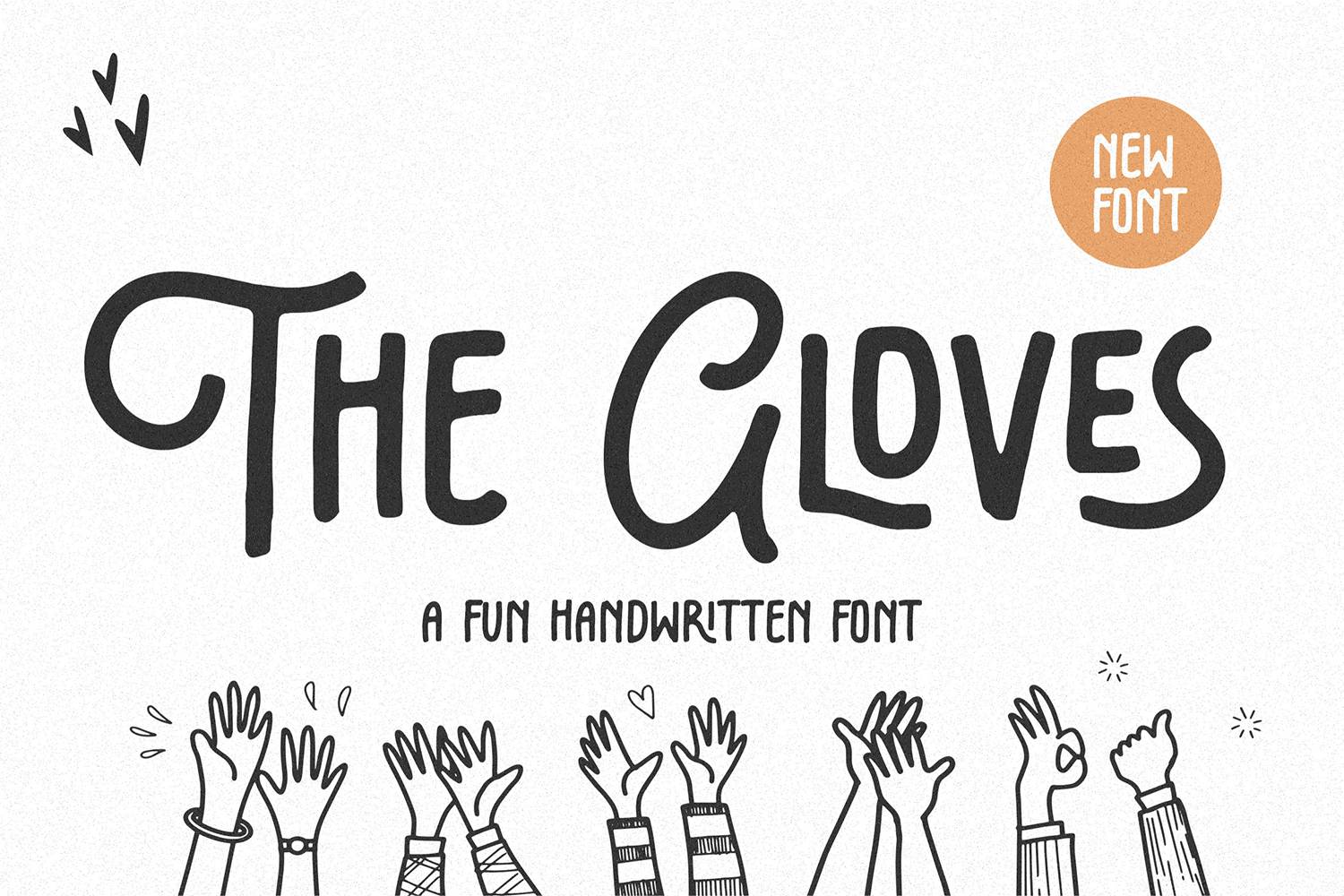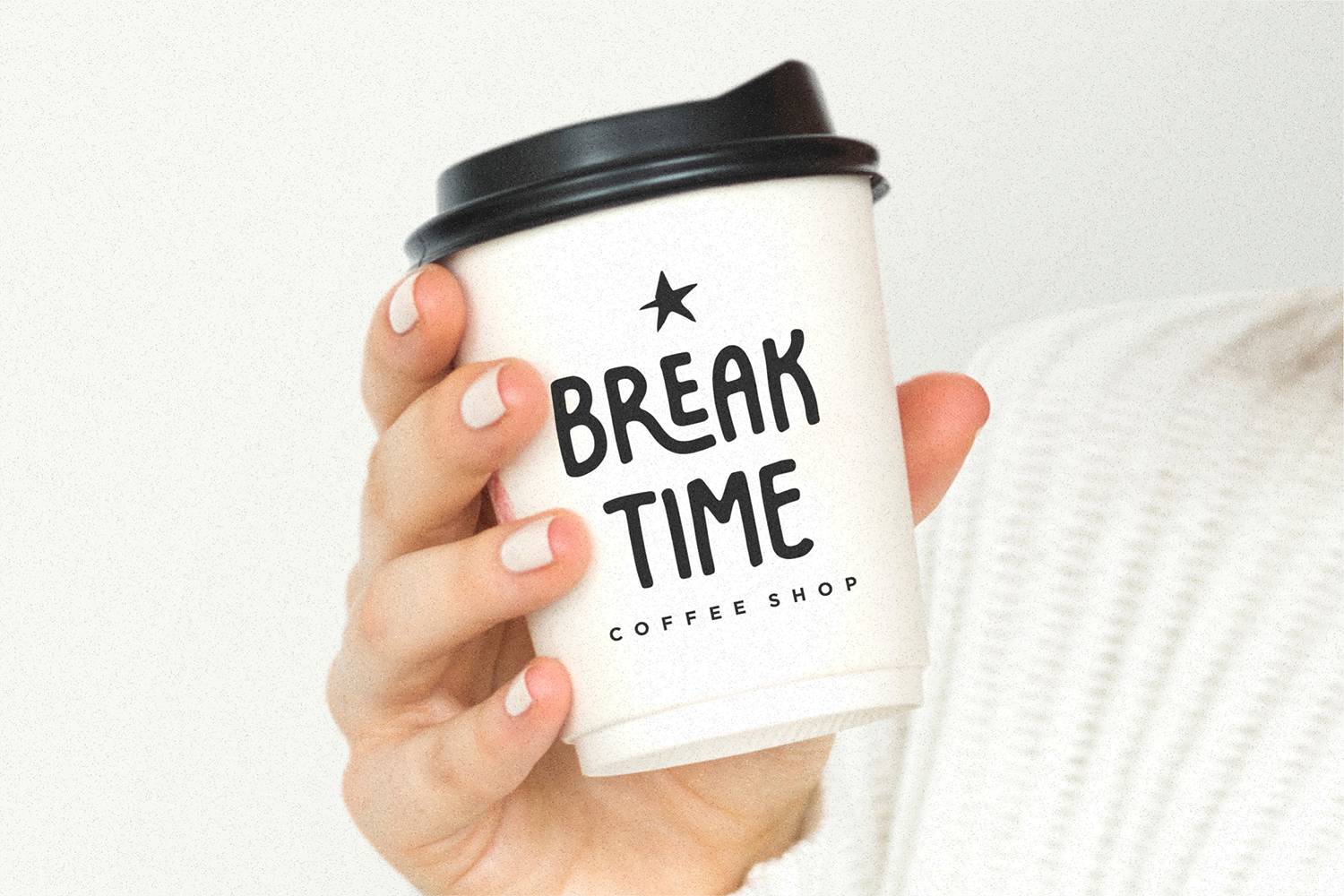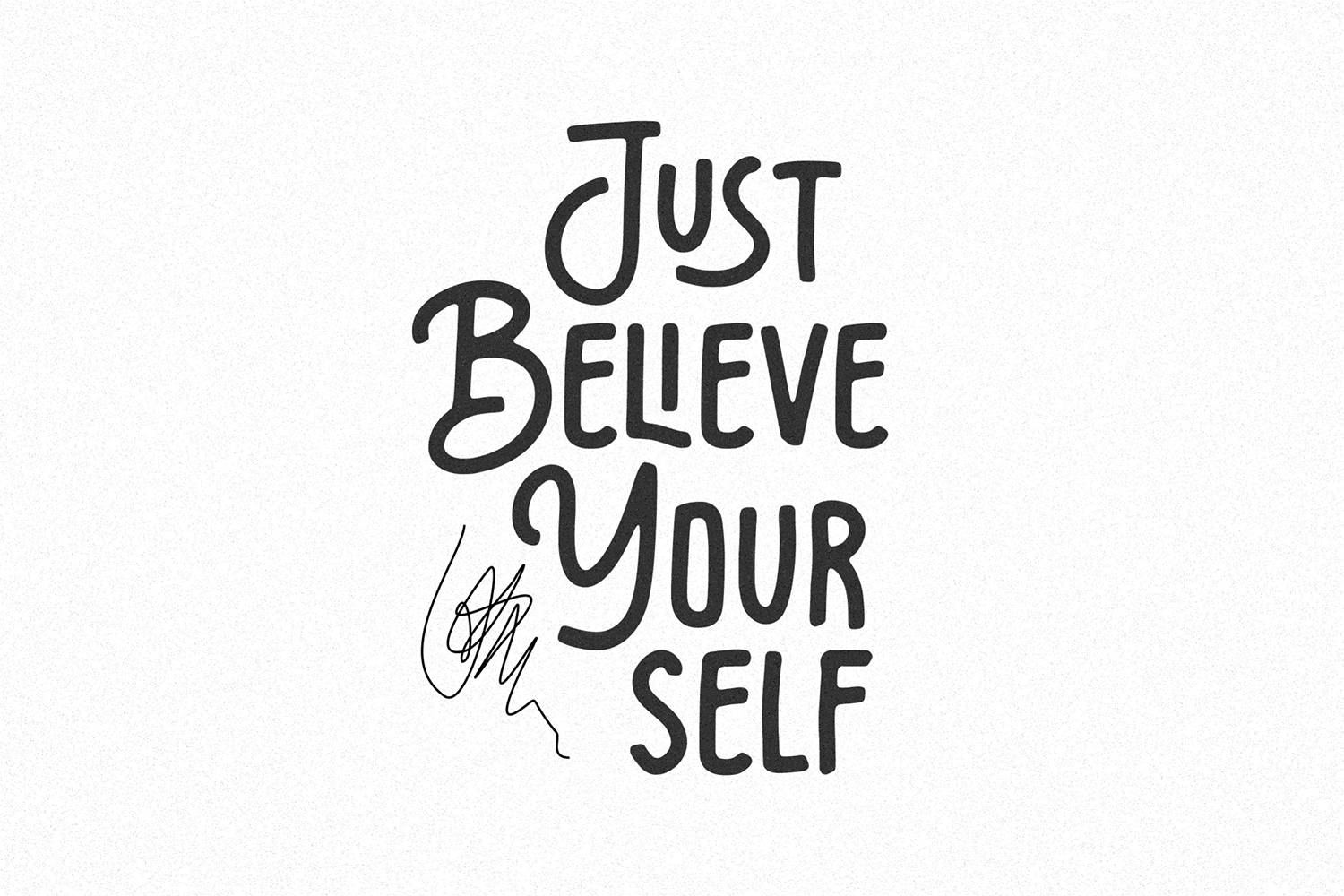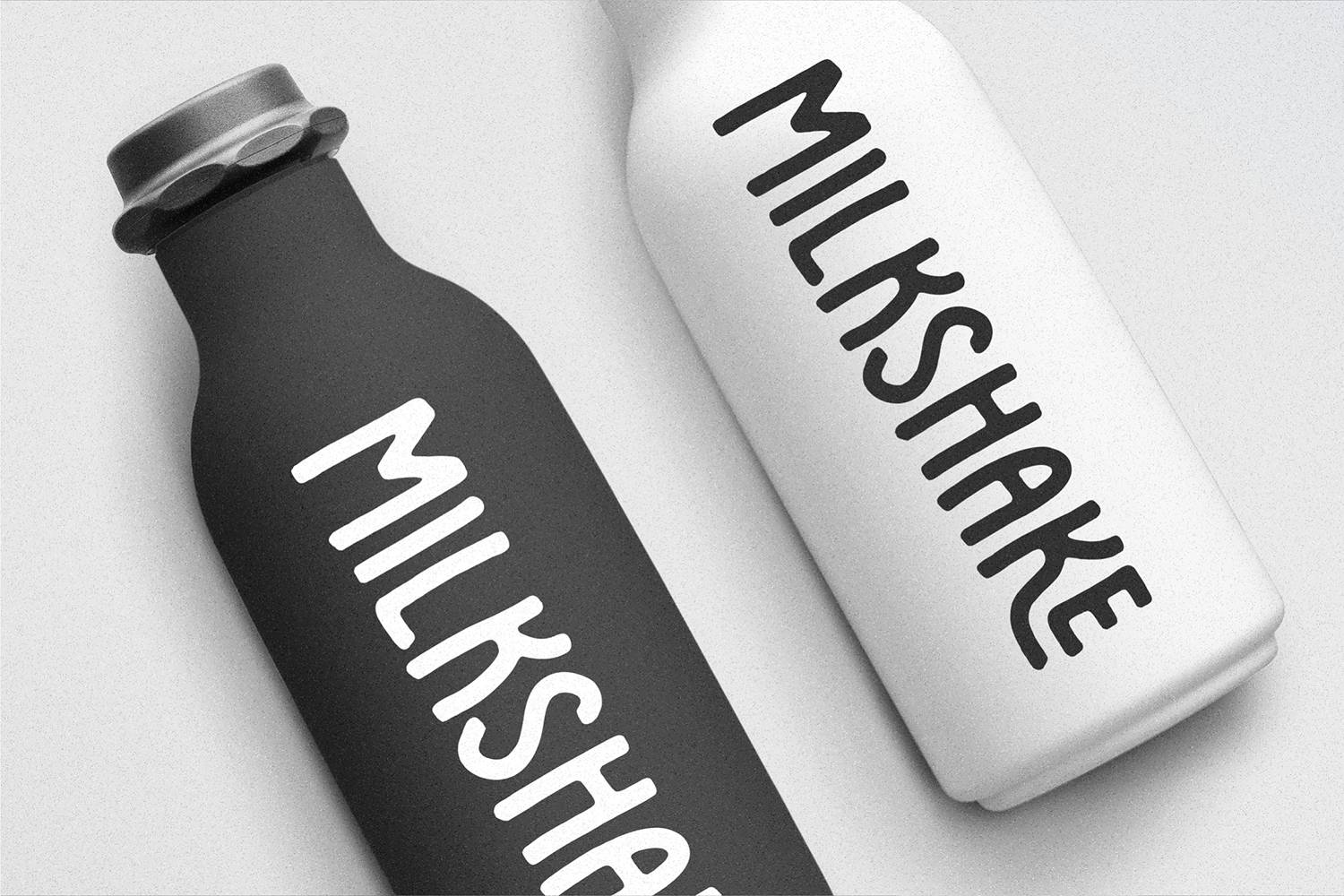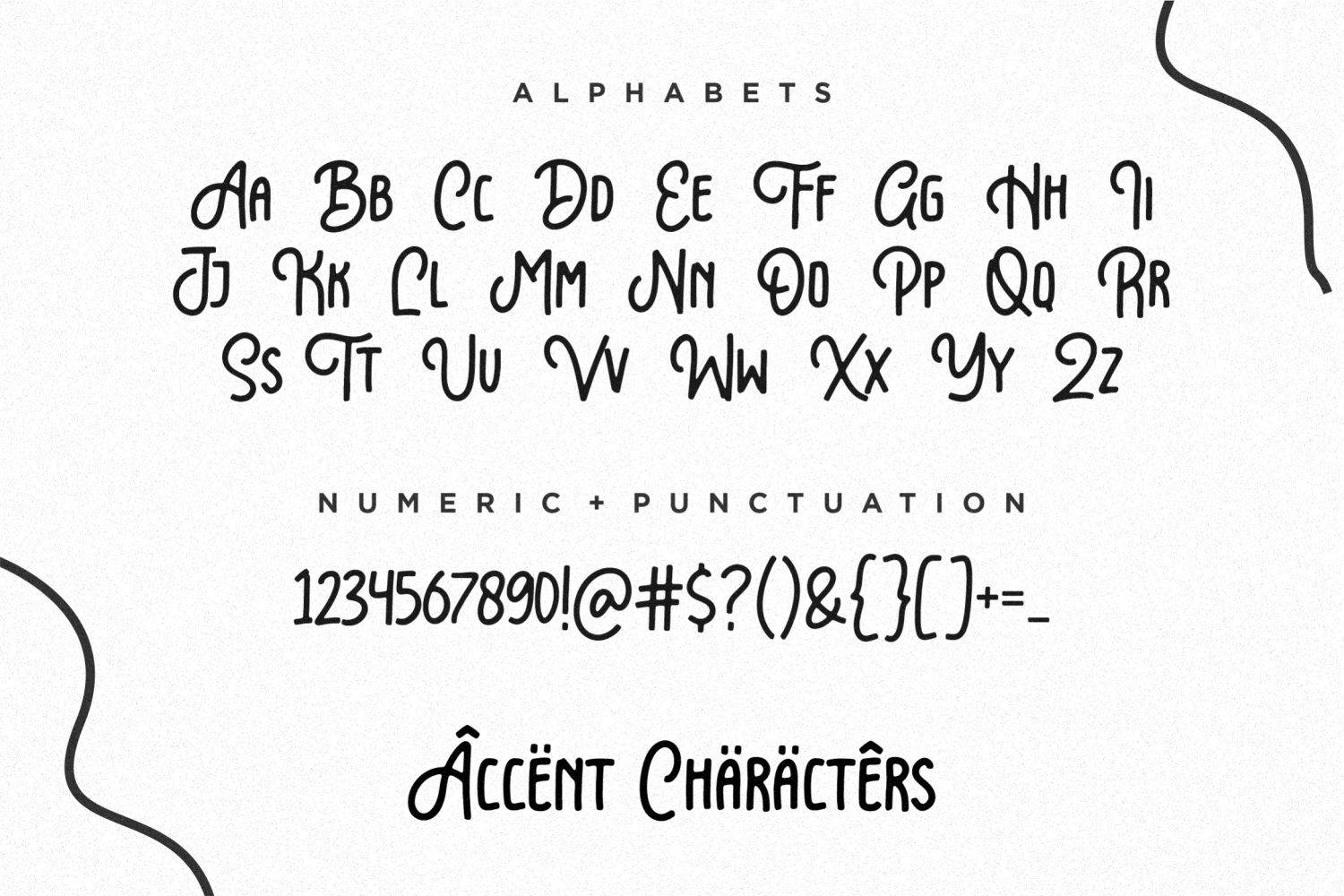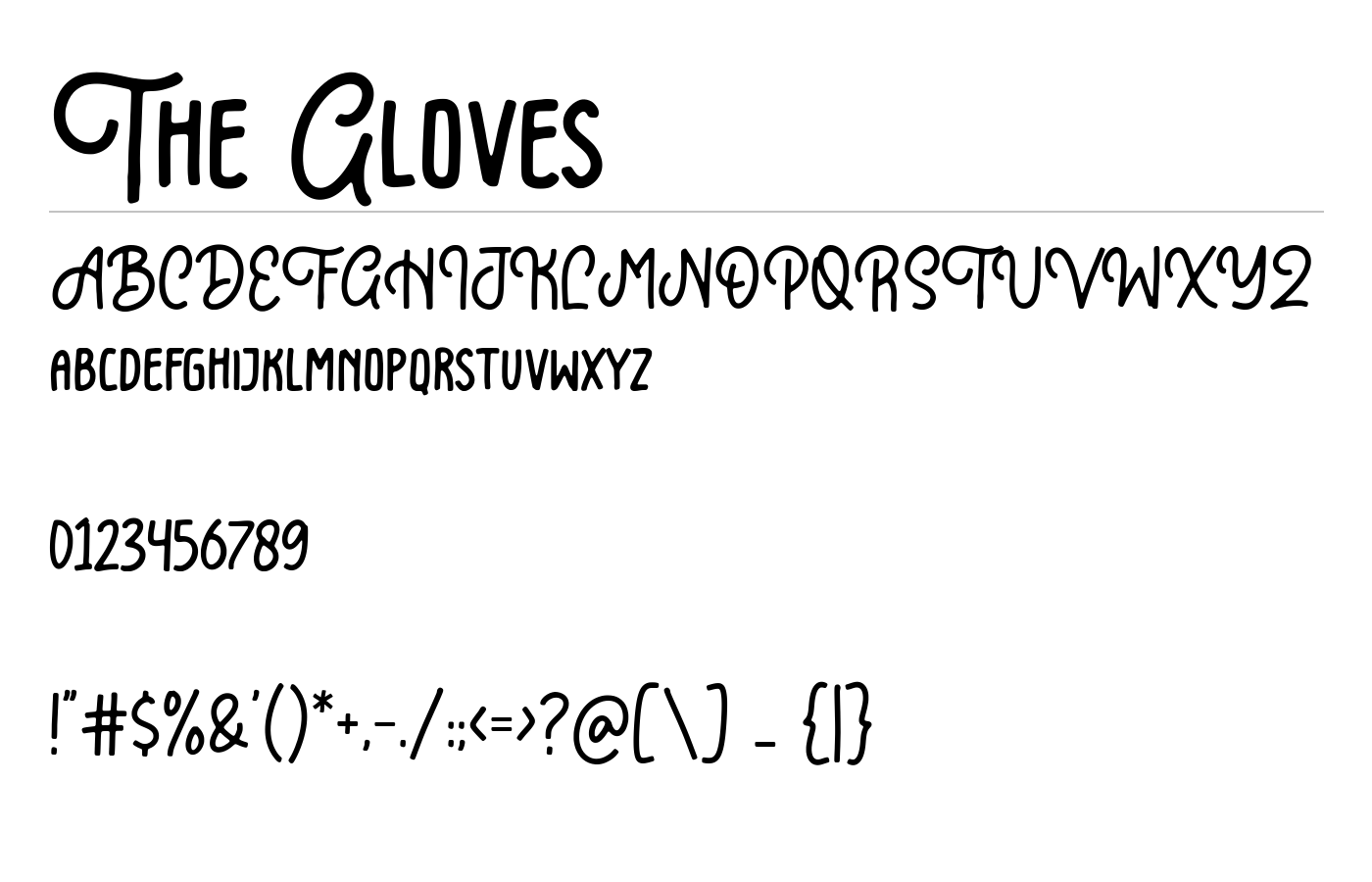
The Gloves font is a playful and quirky sans serif with a handwritten feel, featuring smooth, rounded strokes and a casual, friendly style. Its mix of uppercase scripts and clean, upright forms gives it a unique personality, making it perfect for creative branding, informal headlines, or whimsical packaging. This font works especially well in designs that want to convey approachability and fun with a touch of artistic flair.
The Gloves Font
About The Gloves Font